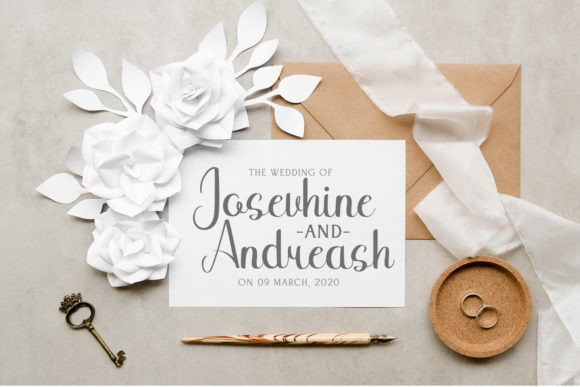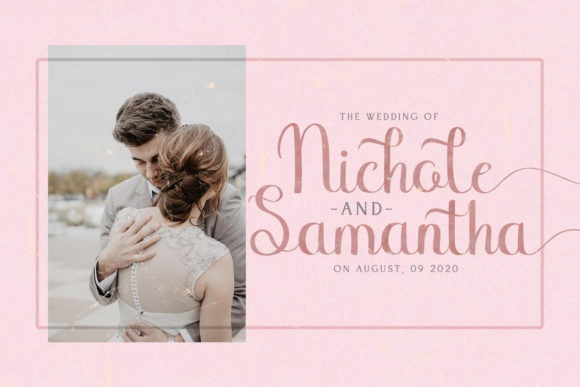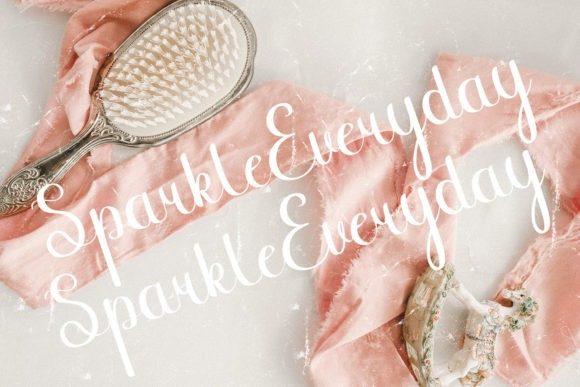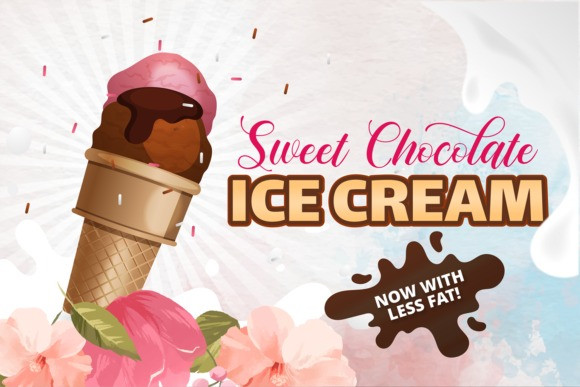
Faylake Script Font
Faylake results out of a stunning pairing of a marker and pencil that makes it look incredibly endearing and authentic. Use this gorgeous and unique display to bring any DIY project to life! This font is PUA encoded which means you can access all of the amazing glyphs and swashes with ease! It also features a wealth of special features including alternate glyphs and ligatures.